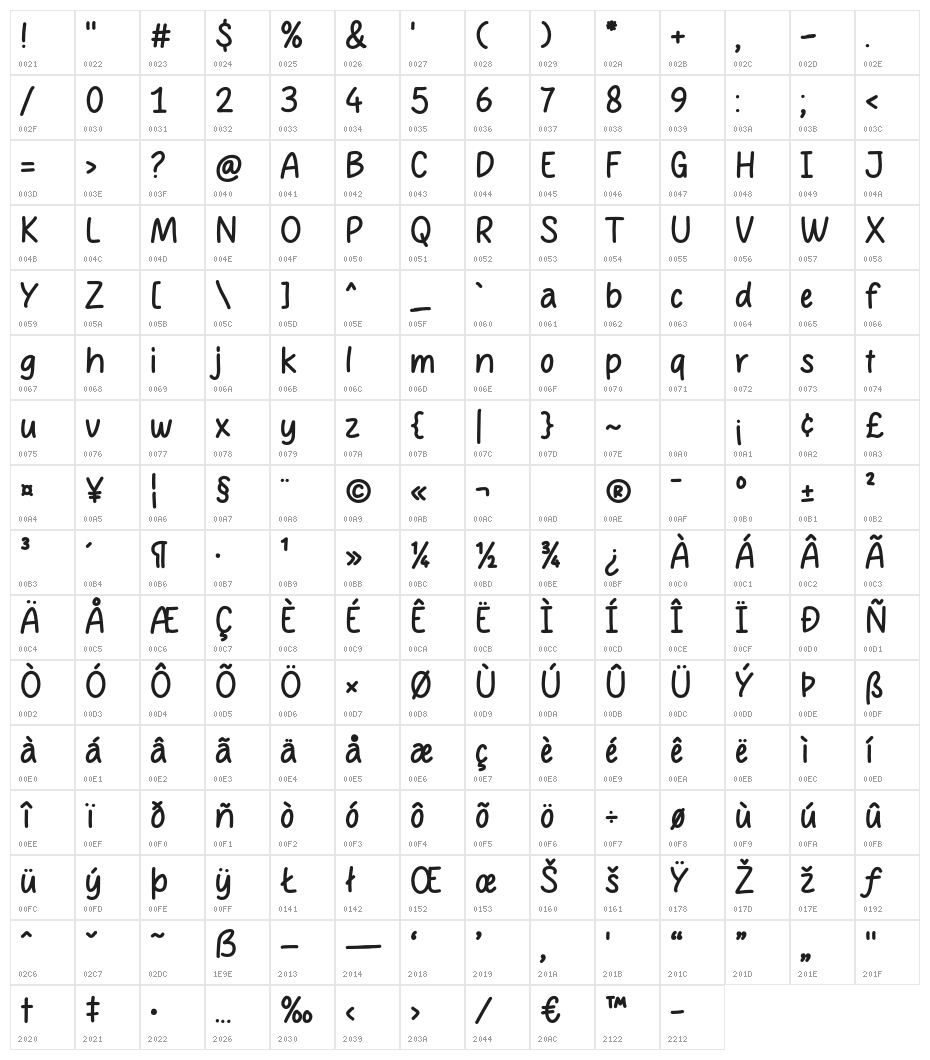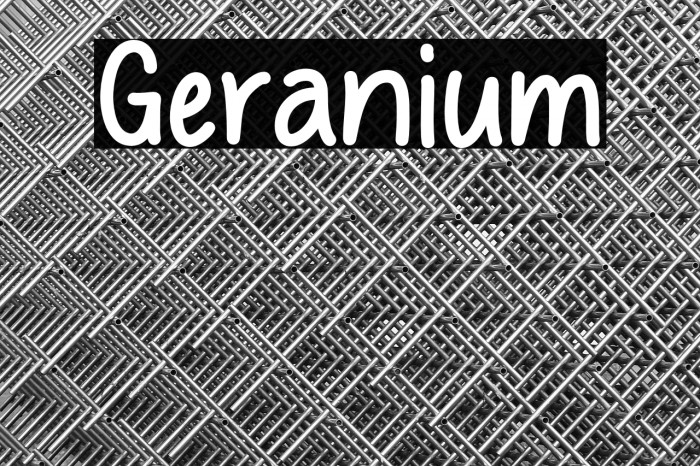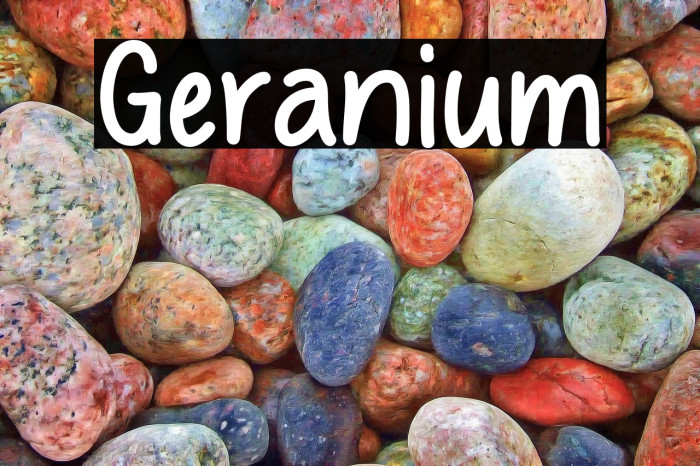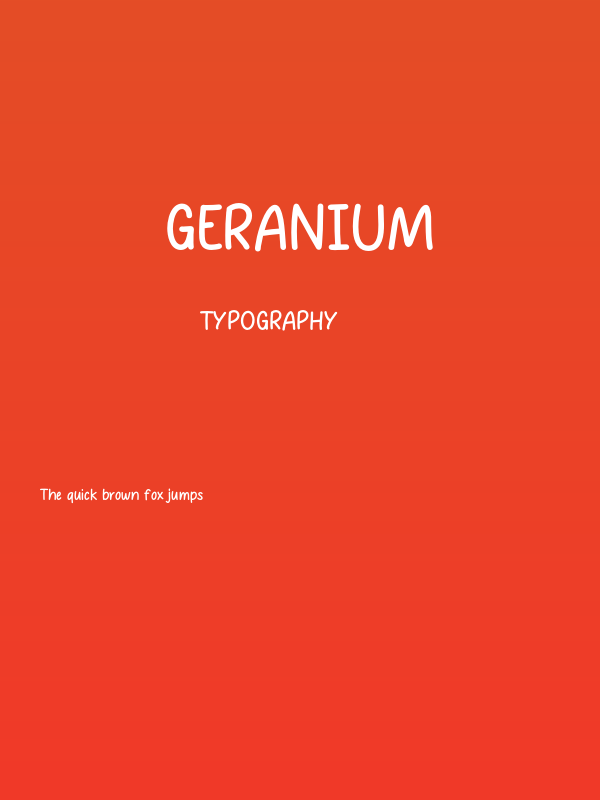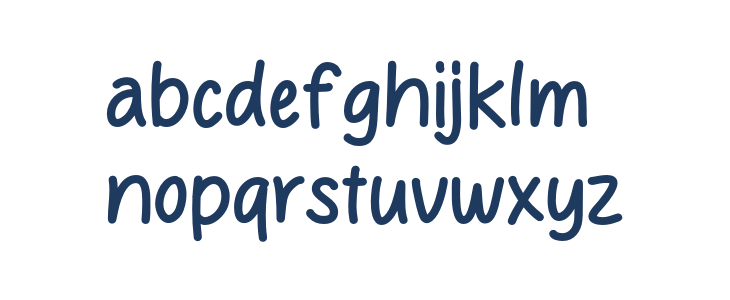
Geranium Font
Geranium Description
This font features a playful and casual handwritten style, characterized by its rounded and slightly irregular letterforms. The strokes are consistent in thickness, giving it a uniform appearance while maintaining a friendly and approachable vibe. The letters are well-spaced, ensuring readability, and the overall design conveys a sense of informality and warmth. The numerals and special characters are designed to match the playful aesthetic of the alphabet, making it suitable for various creative projects.
| Overall Style | Casual |
| Use Case | Logos, Headlines, Informal Text |
| Proposed Projects | Ideal for greeting cards, children's books, casual branding, and social media graphics. |